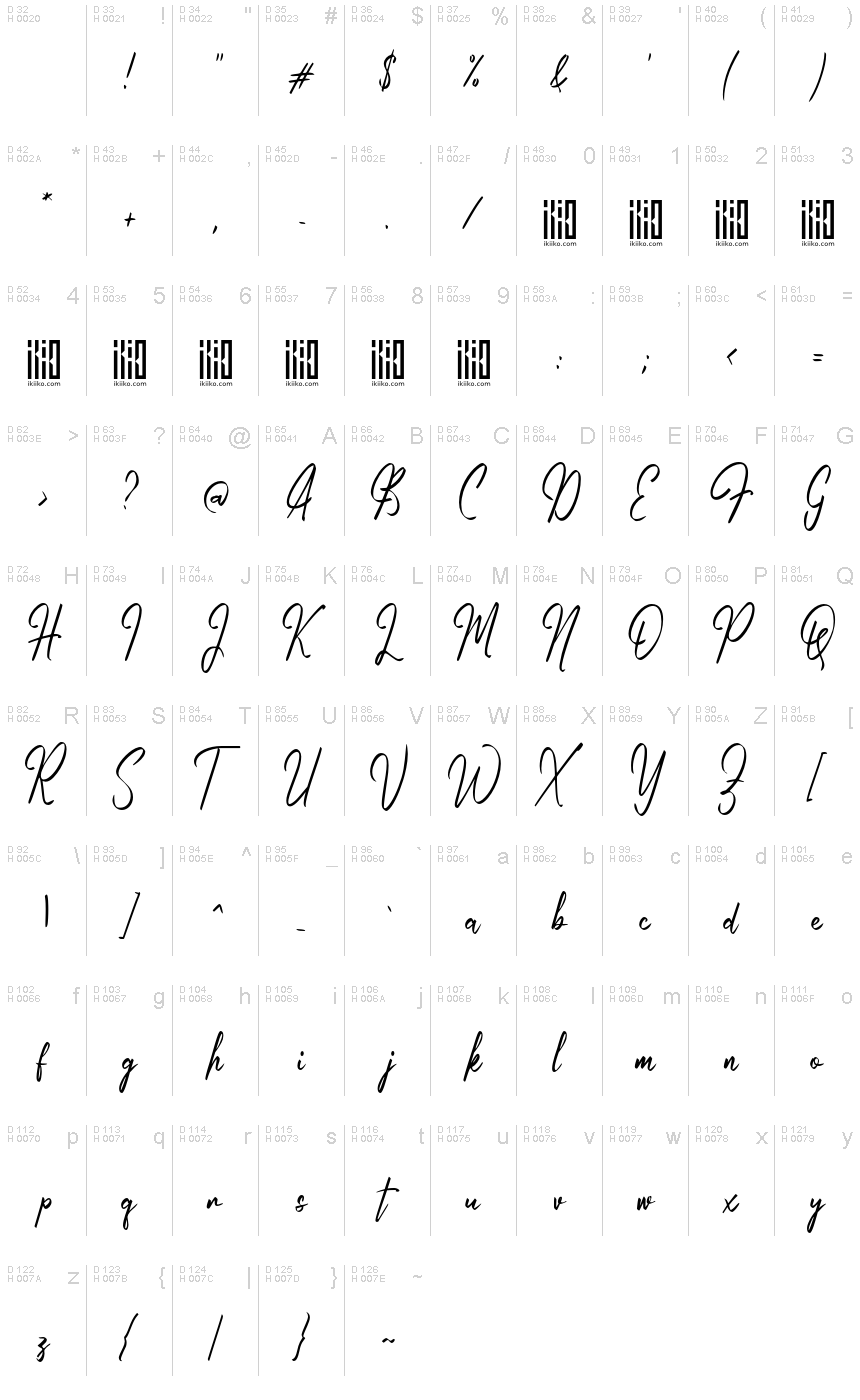
Autumn Field ikiiko.com
Autumn Field, designed by Ikiiko Type, exudes a personal touch with its handwritten, signature style. This font captures the essence of a bespoke script with its elegant and flowing characters that seem to dance across the page. The condensed nature of Autumn Field gives it a sophisticated charm that is both inviting and distinctive.
The aesthetic appeal of Autumn Field lies in its ability to convey warmth and personality, making it an excellent choice for branding, wedding invitations, personalized stationery, and any project that requires an intimate yet stylish touch. Its signature look provides an authentic handwritten feel that can elevate the design of book covers or boutique packaging with ease. Embrace Autumn Field for designs where character and elegance are paramount.